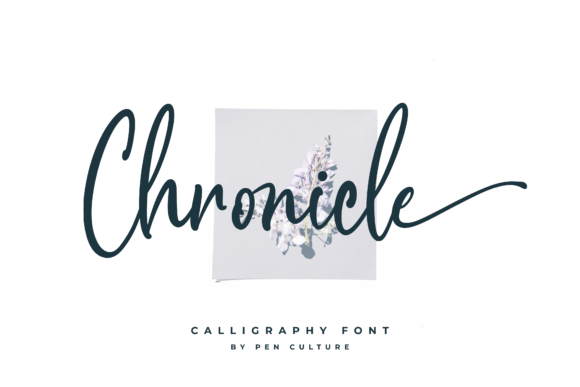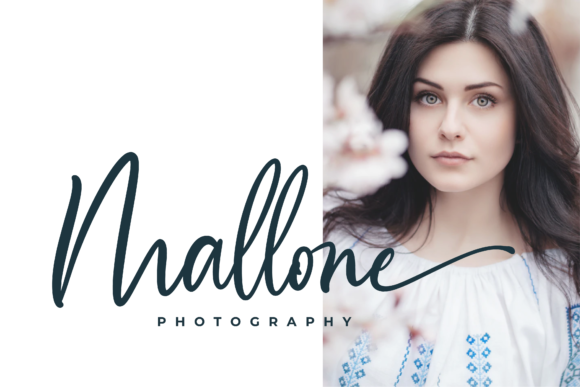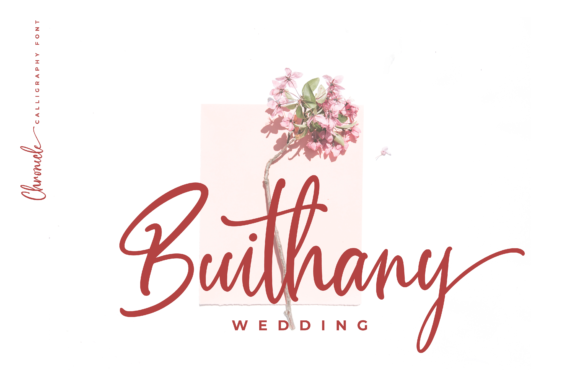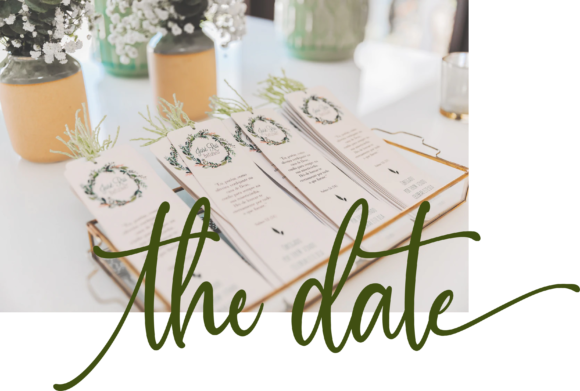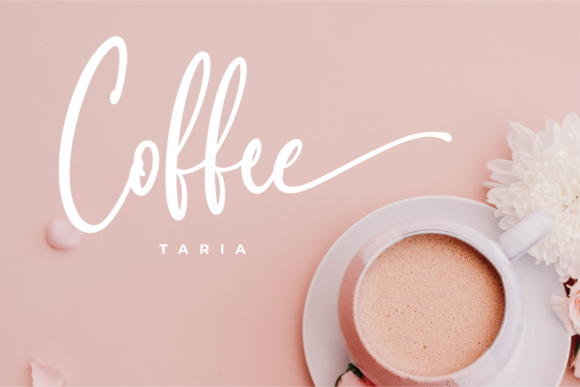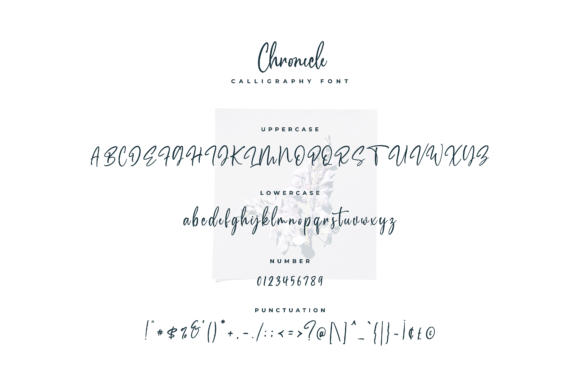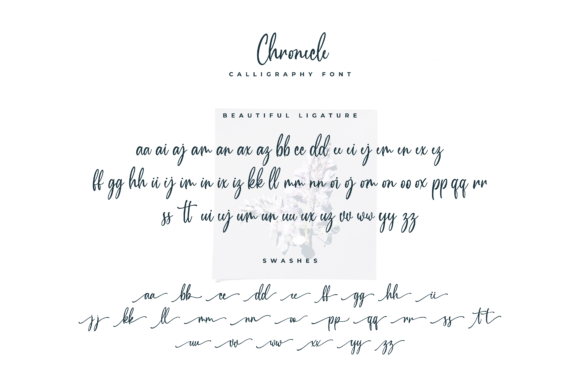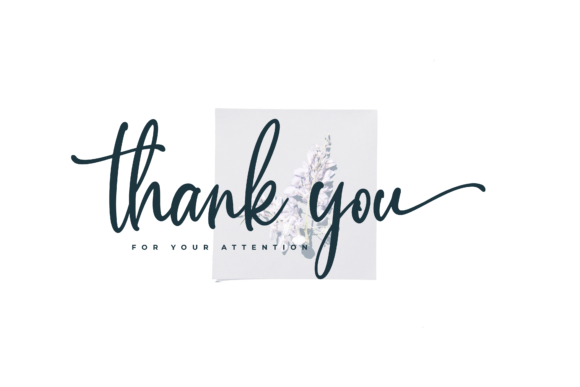
Chronicle Font
About Chronicle Font
Chronicle is modern and elegant, but also classic. This versatile script font has a wide range of applications ranging from stationery to branding, and is guaranteed to add a gorgeous touch to your next design.